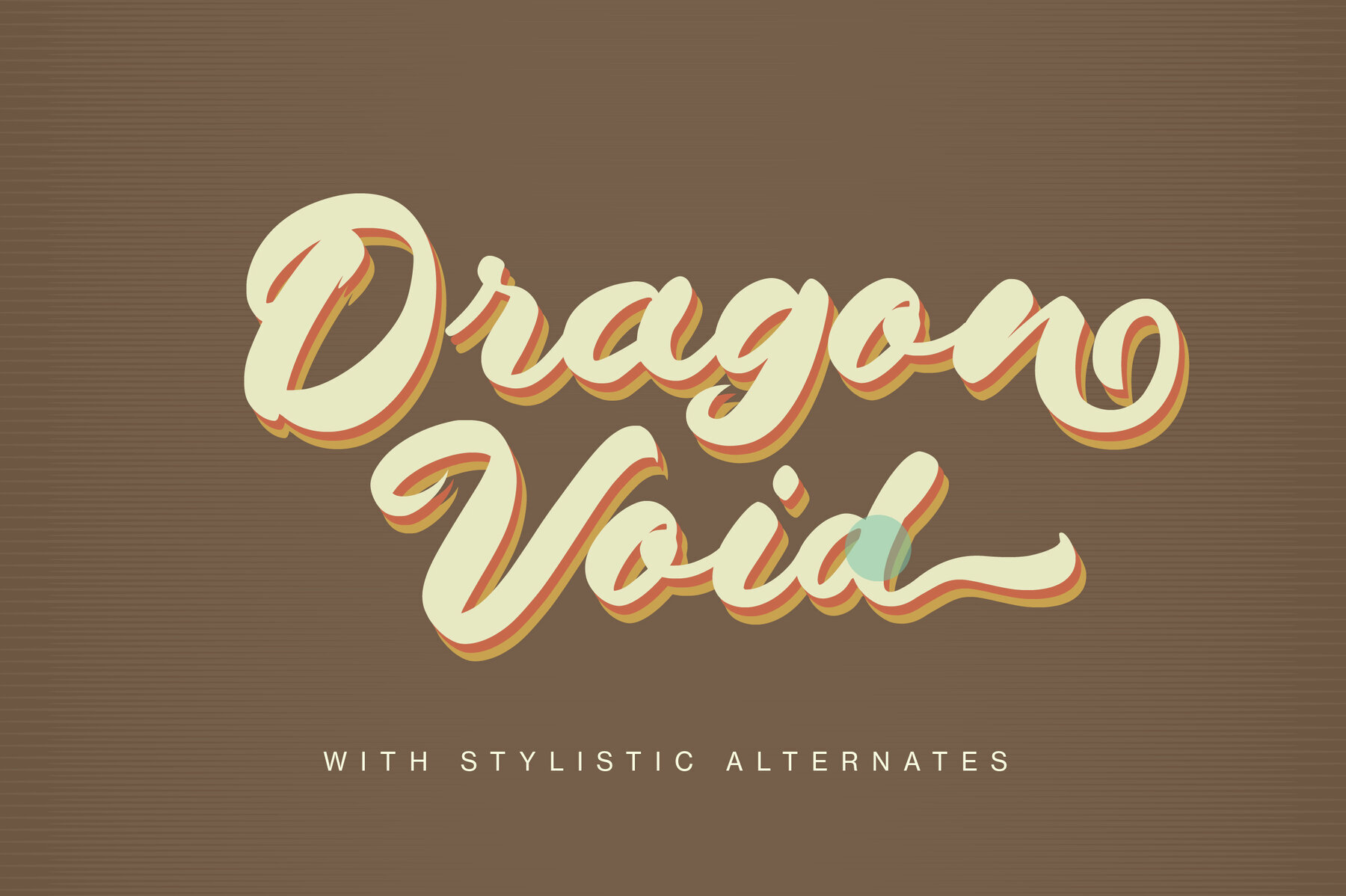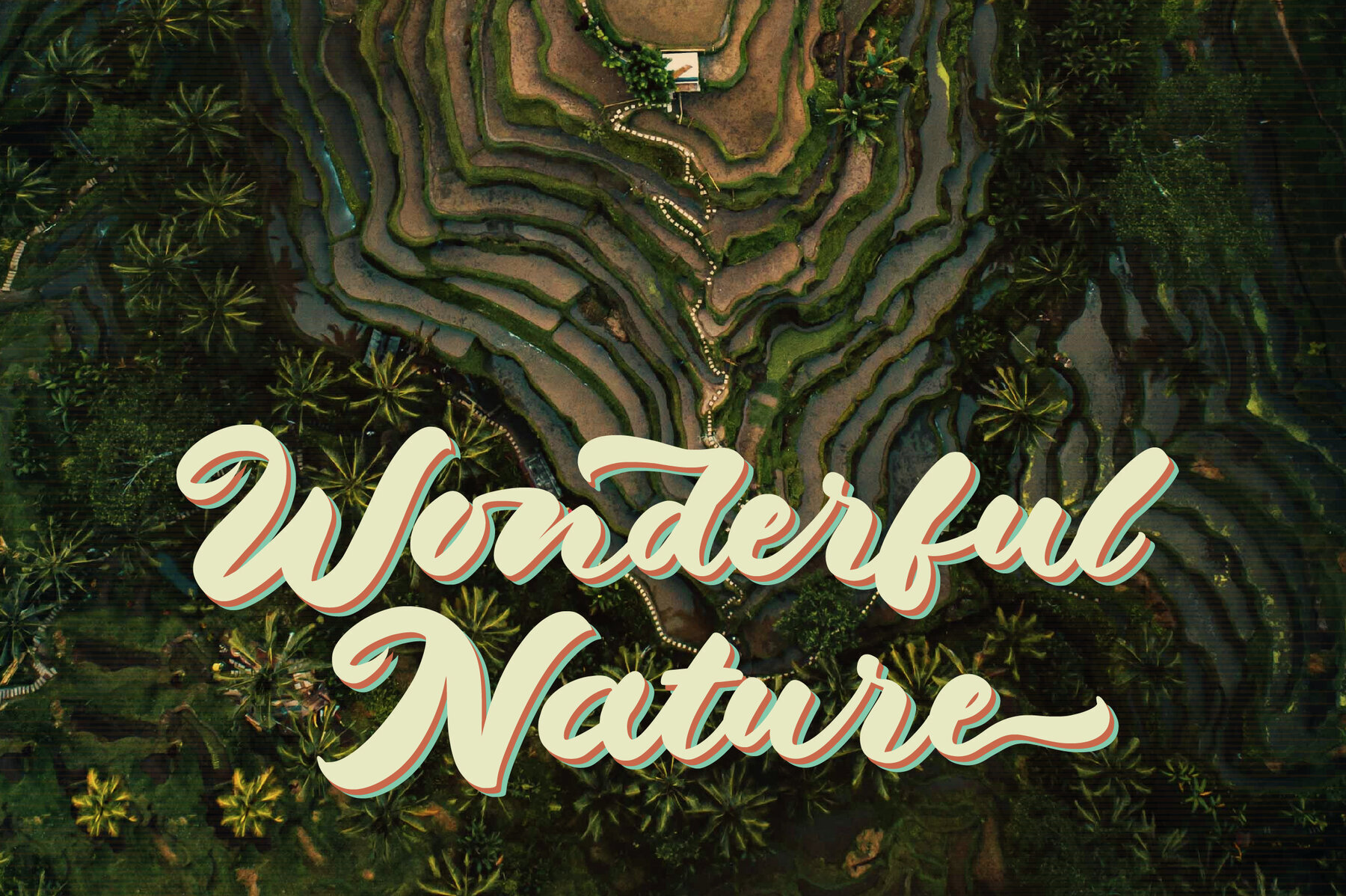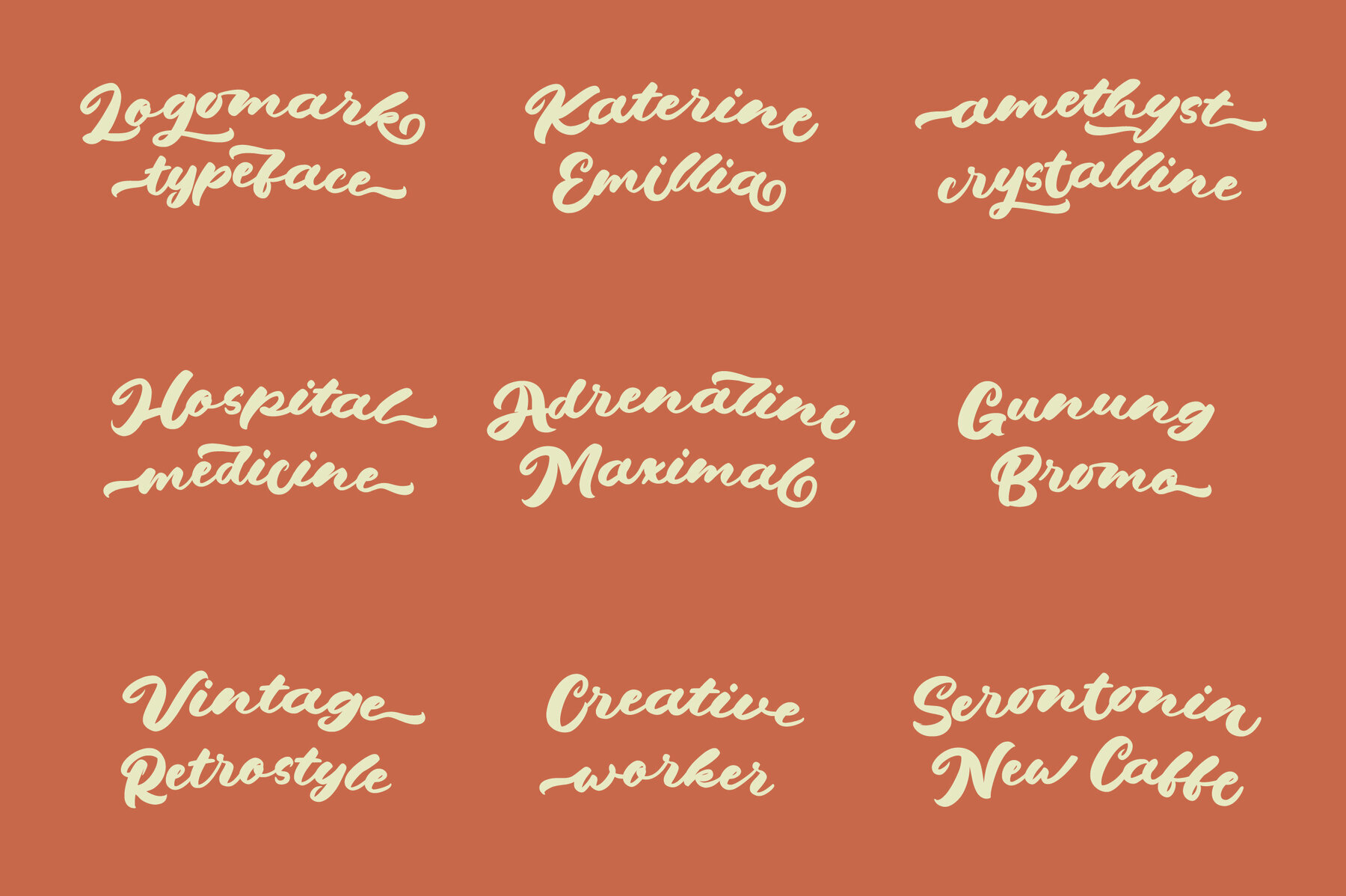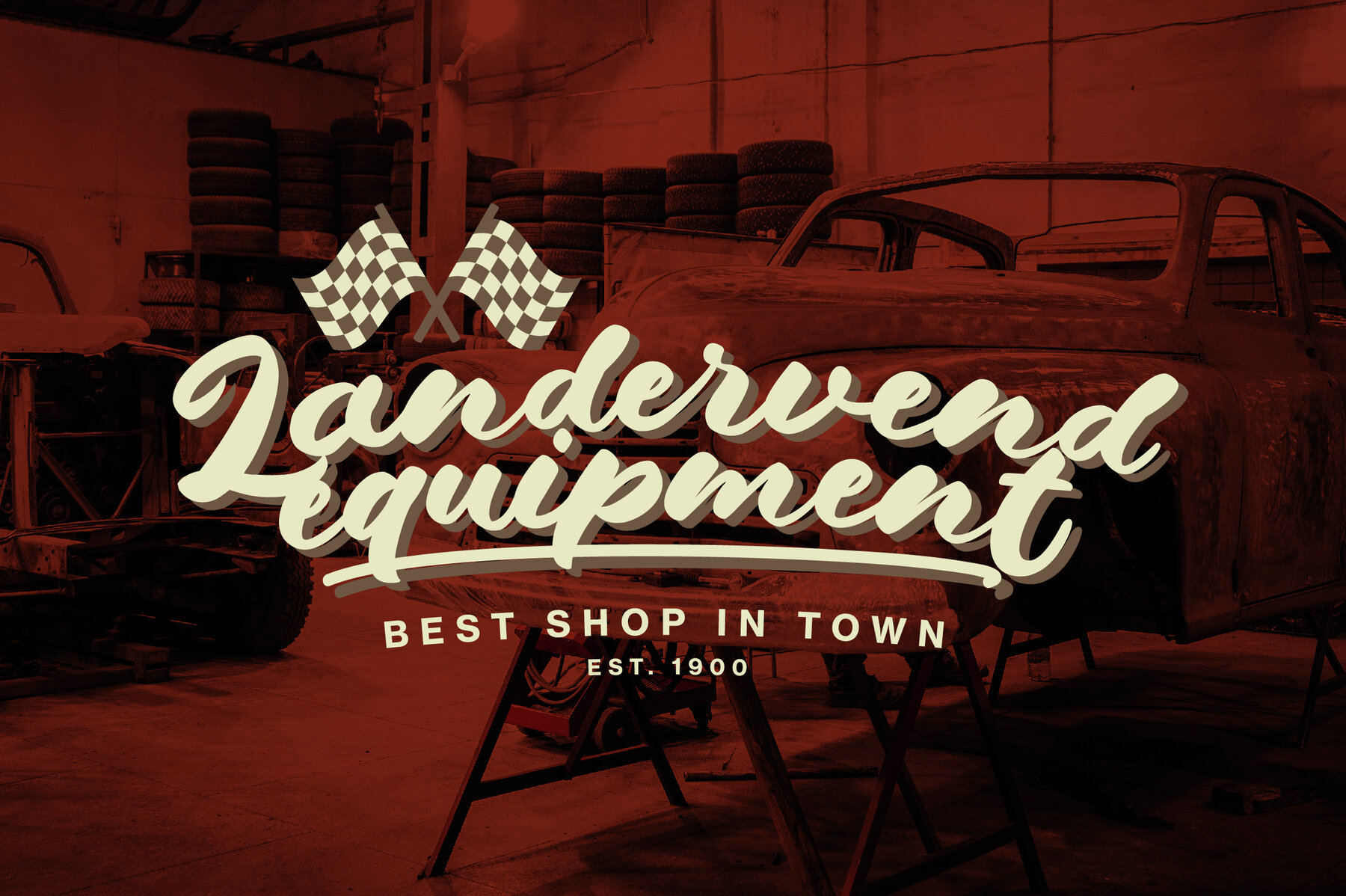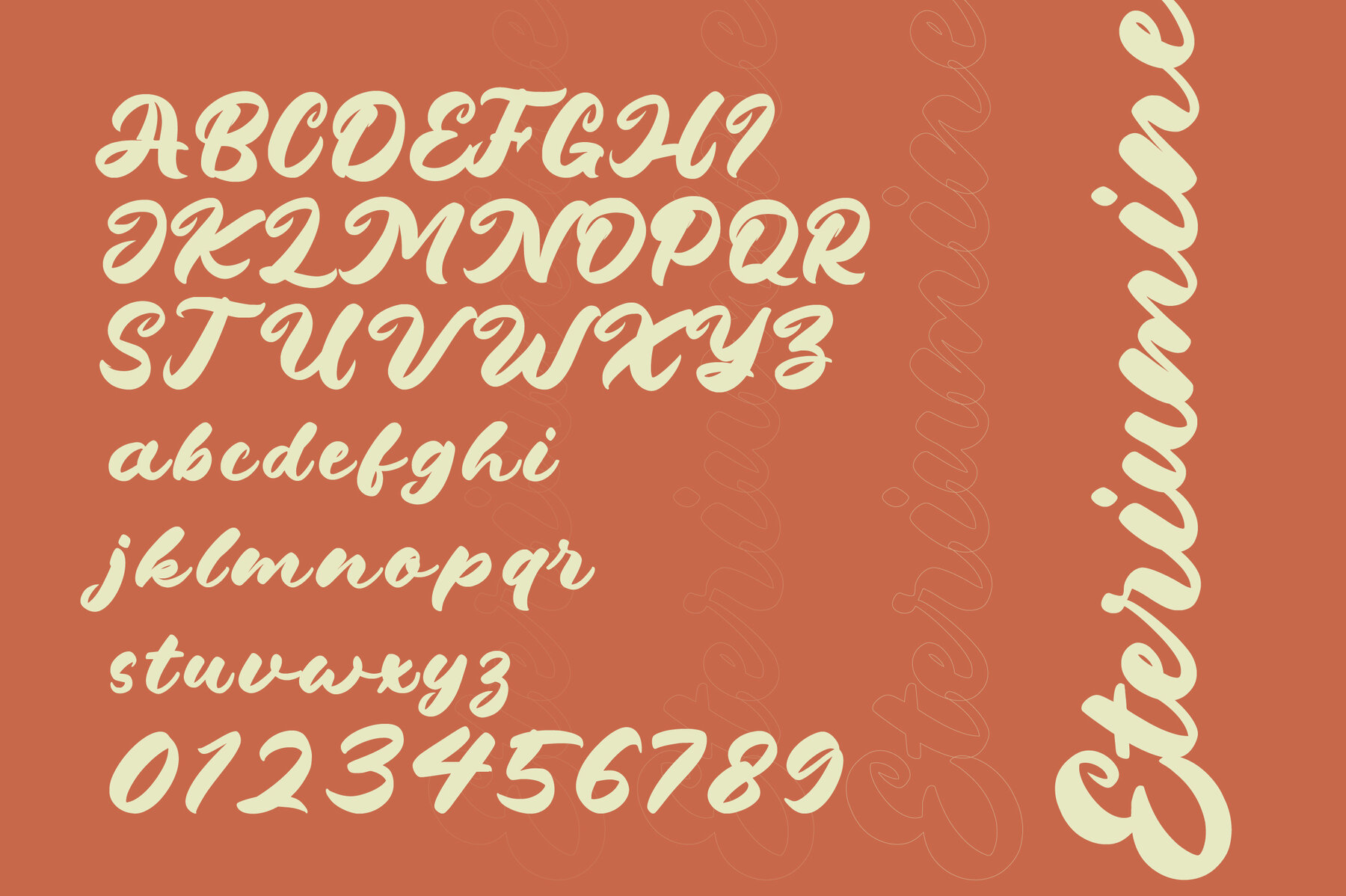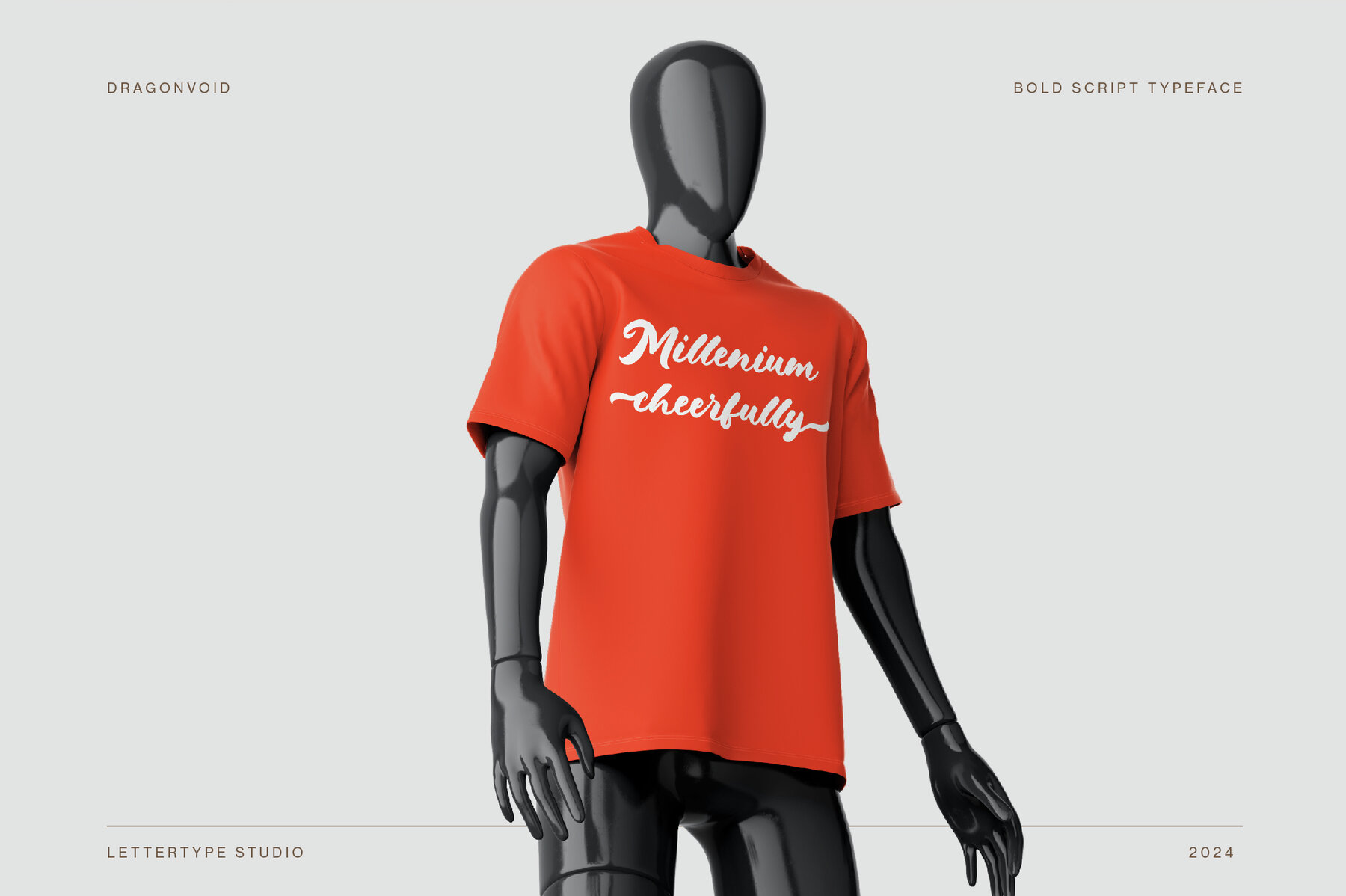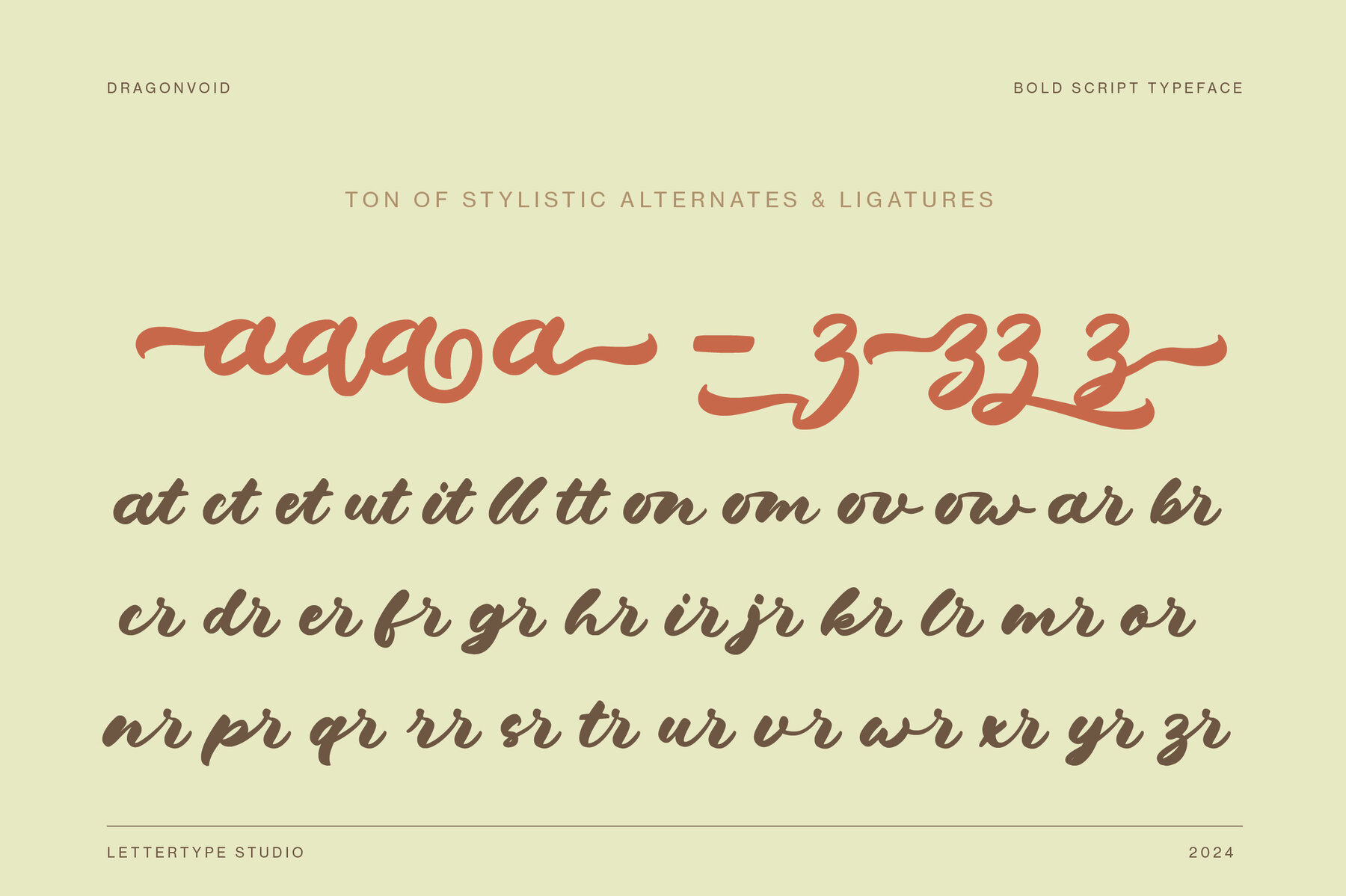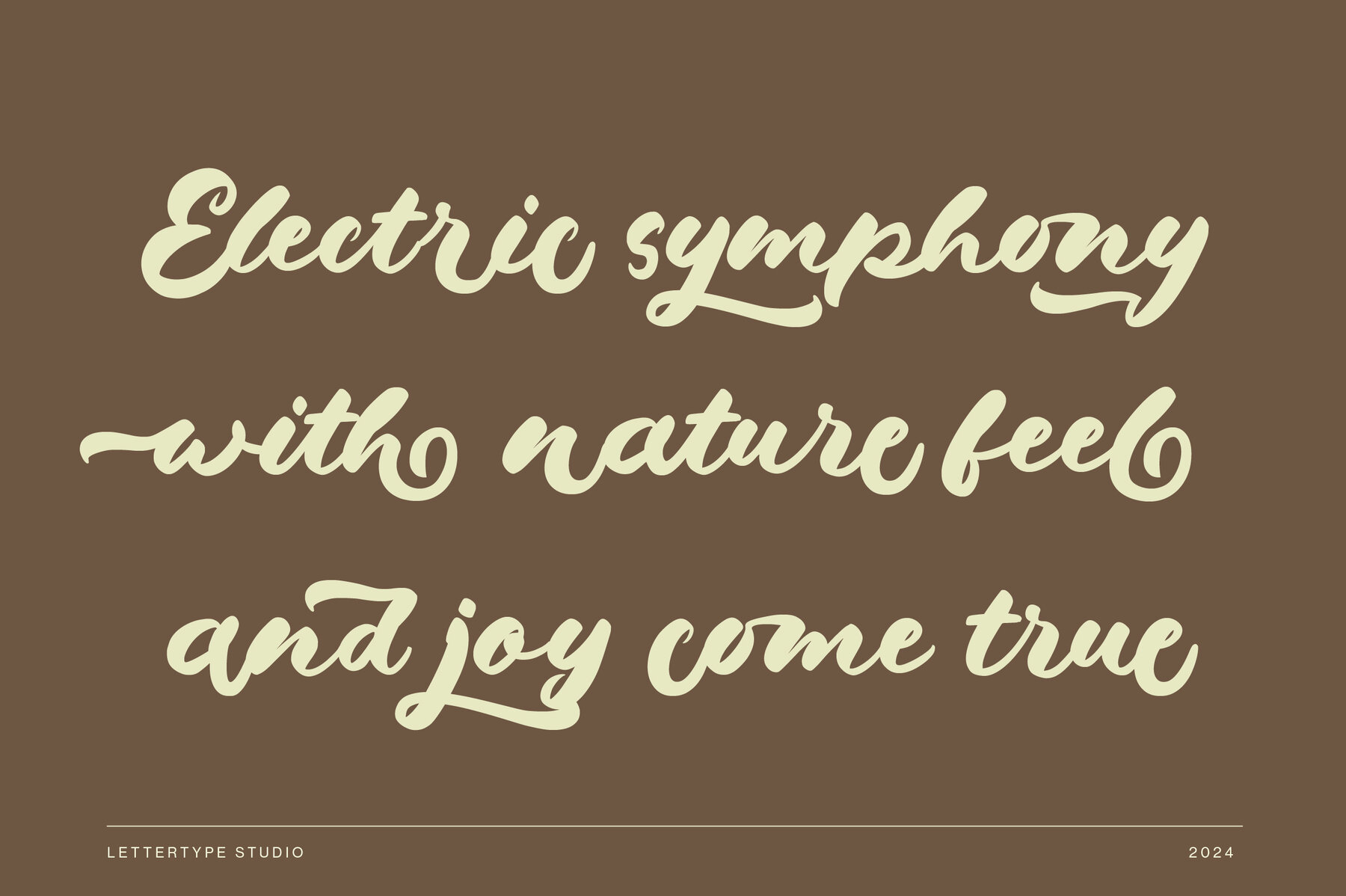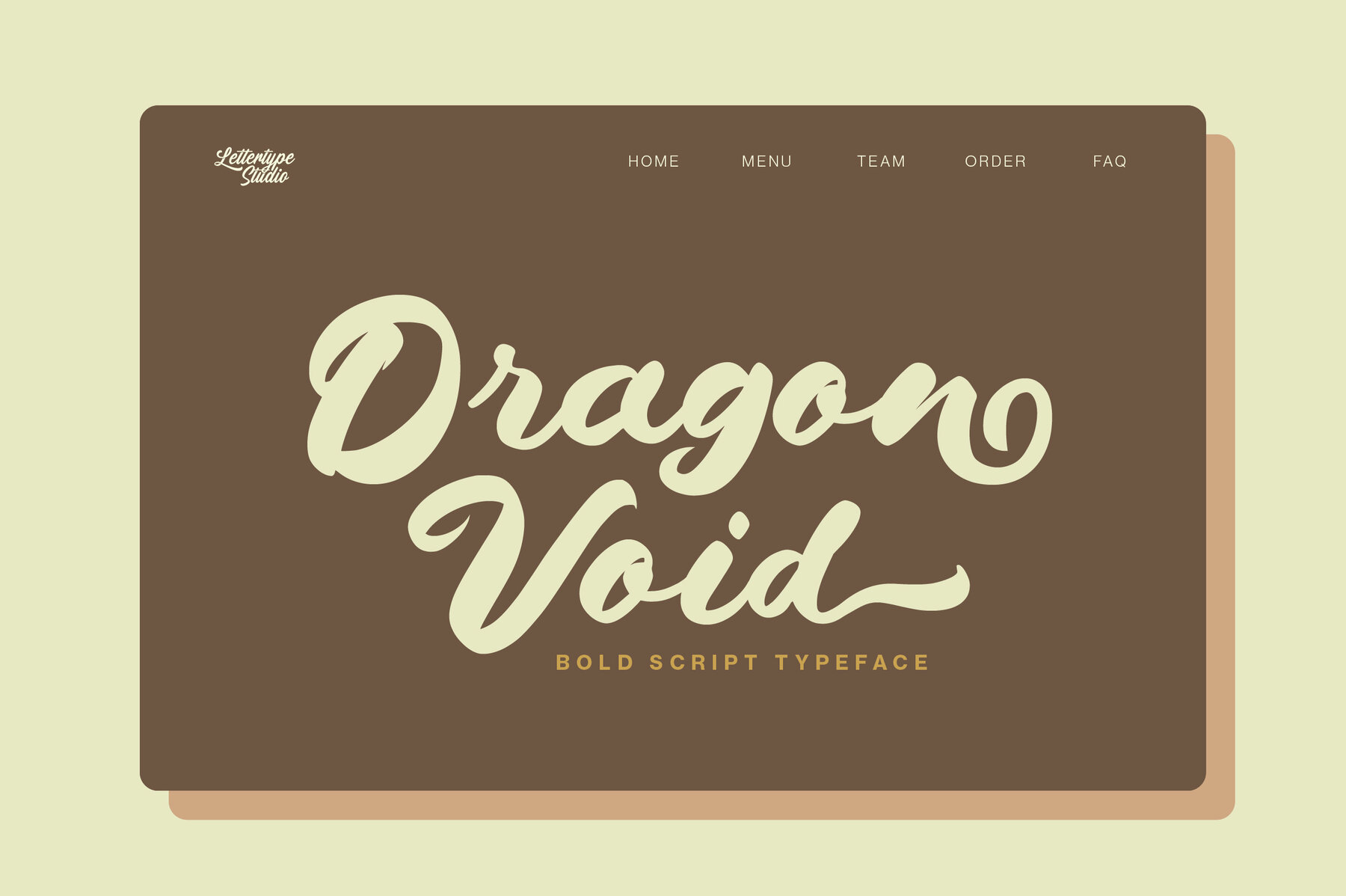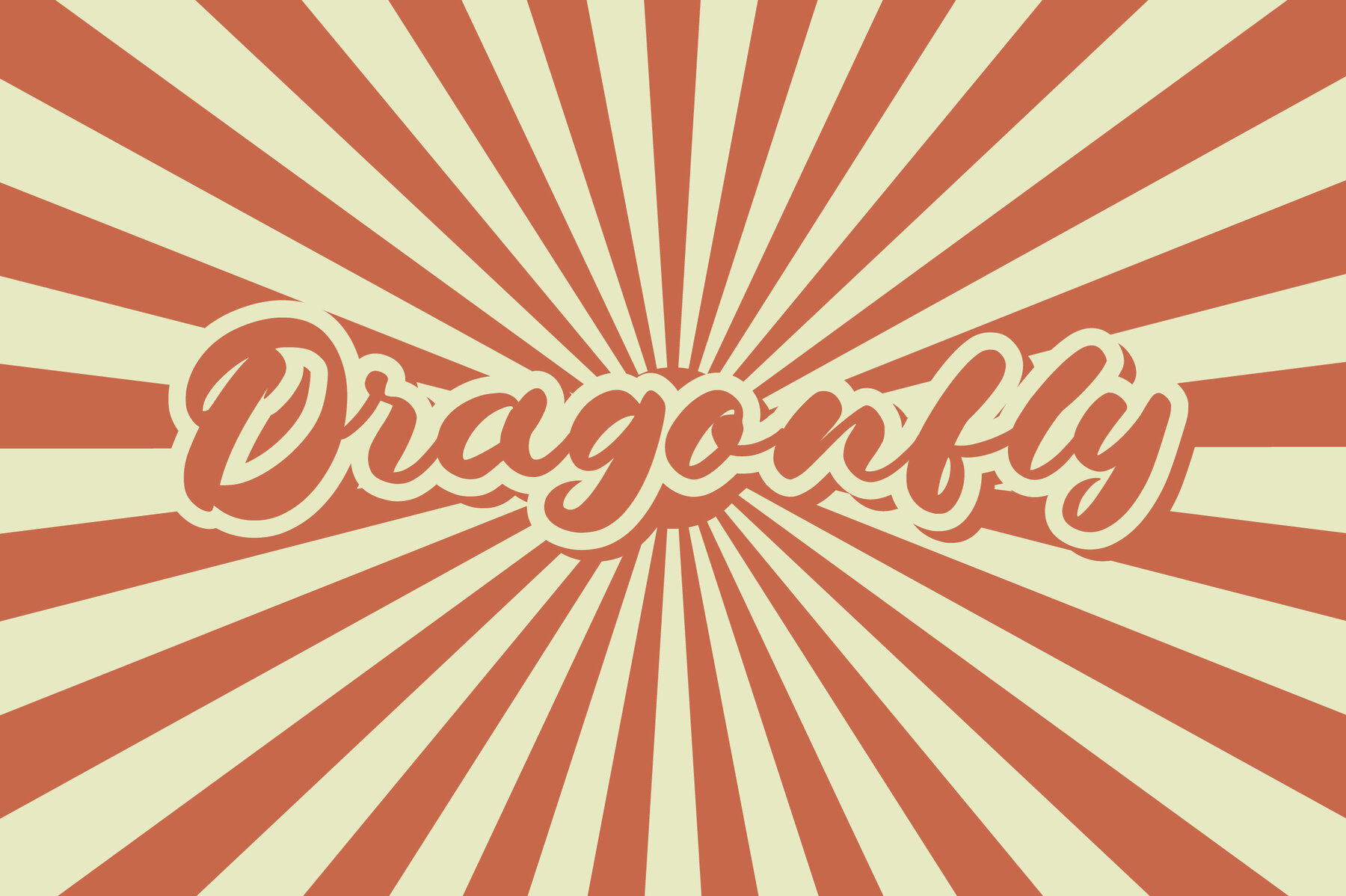
Dragonvoid Font
Dragonvoid Regular
The newly crafted Dragonvoid script font offers a dynamic blend of retro style and handmade touch, ideal for injecting character into your projects. With a variety of alternates and ligatures, Dragonvoid ensures a distinctively personal flair across a range of applications. Perfect for photography watermarks, social media visuals, and branding, Dragonvoid shines in any setting that benefits from a bold script style. From invitations and product designs to headers and special event materials, this font adapts seamlessly to diverse creative needs.Dragonvoid: Bold Script for a Retro Touch
Dragonvoid Features